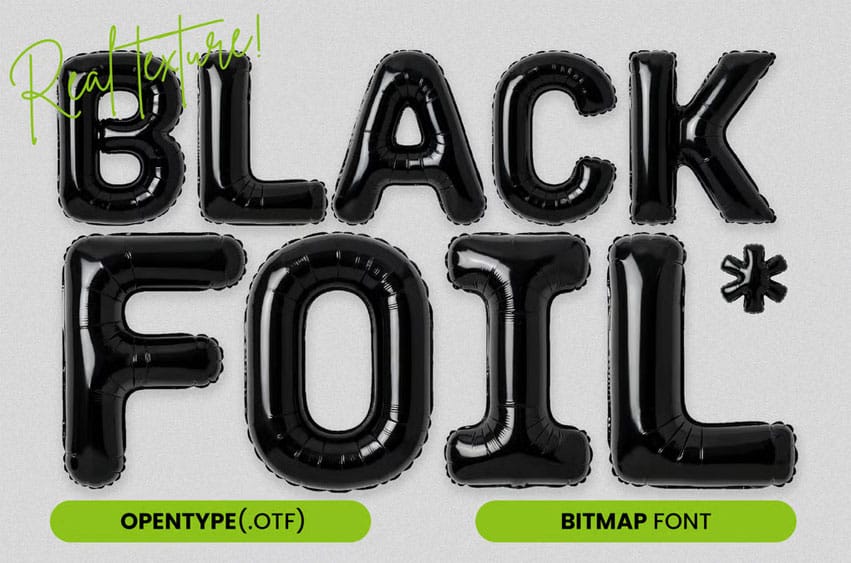
Black Foil Font Add instant party vibes and high-end shine to your designs with the Black Foil Balloon Font!
This font captures the glossy, crinkled texture of real foil balloons. Whether you are designing for a birthday, a Black Friday sale, or a modern streetwear brand, this font delivers that “pop” off the screen.